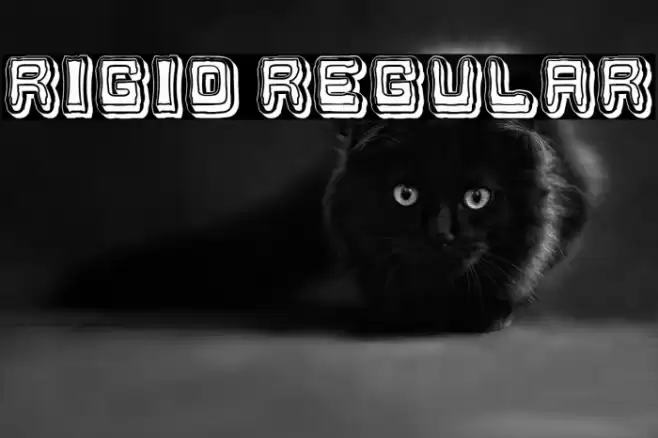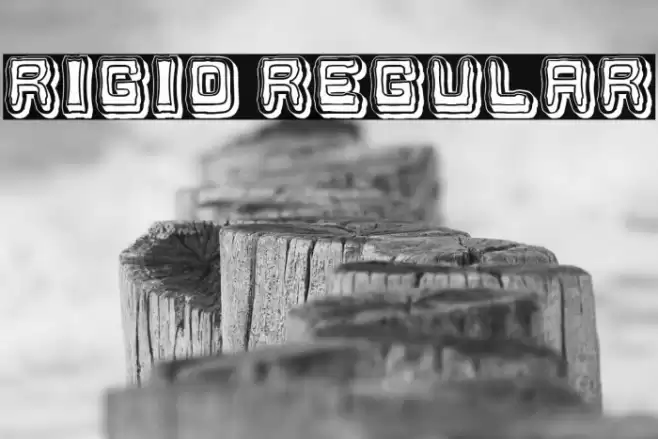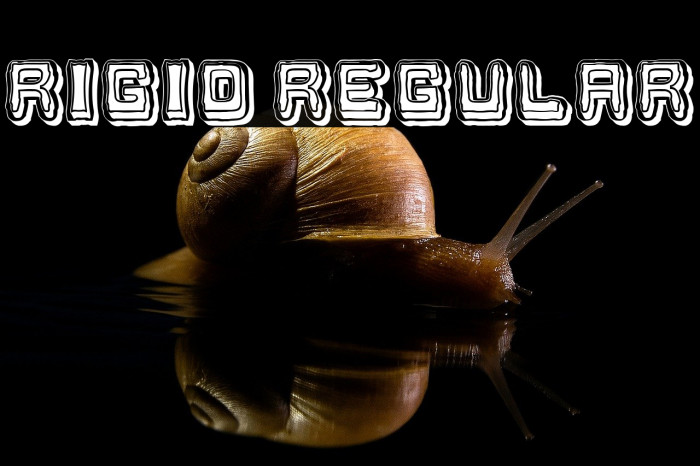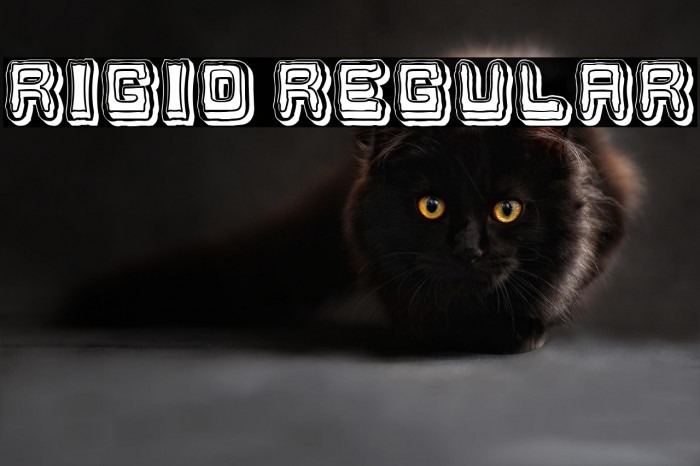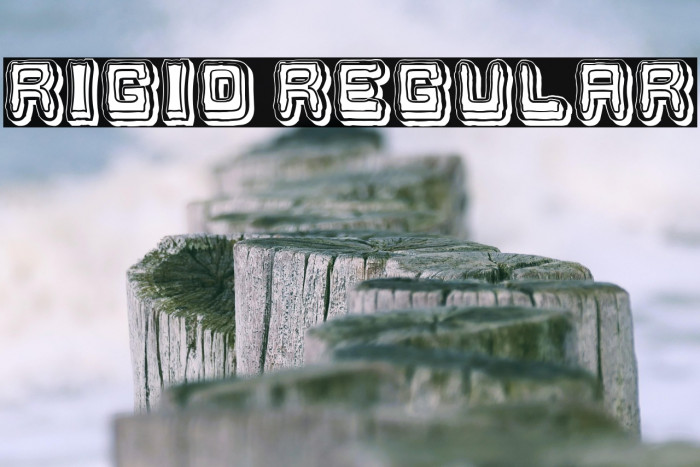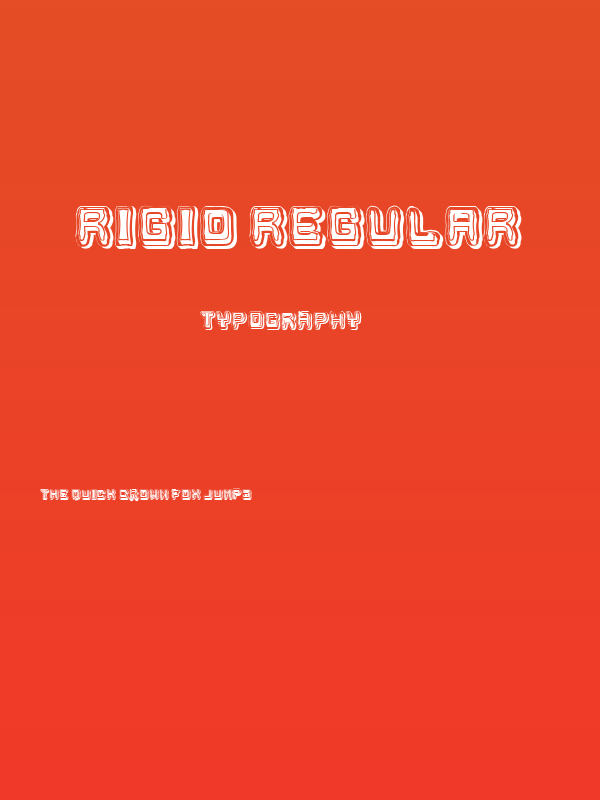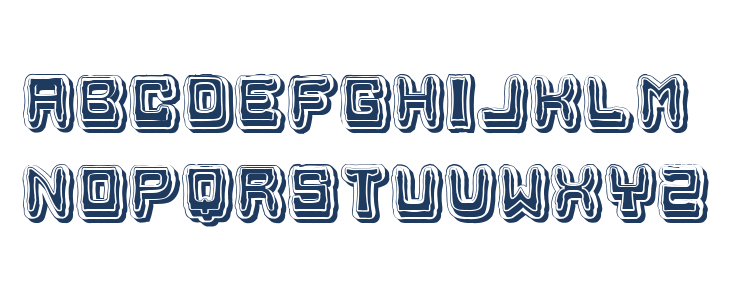
Rigid Regular Font
Rigid Regular Description
This font features a bold, three-dimensional appearance with a distinct outline that gives it a layered, shadowed effect. The characters are uppercase and exhibit a geometric, block-like structure, which contributes to its strong and impactful presence. The design is reminiscent of retro or vintage styles, with a modern twist that makes it suitable for eye-catching displays. The letters are evenly spaced, ensuring readability despite the intricate detailing. This font is ideal for projects that require a standout, decorative typeface that commands attention.
A bold, three-dimensional font with a retro, geometric style from Uncategorized fonts.
- Proposed Projects: Ideal for posters, logos, headlines, and any design needing a bold, decorative touch.
- Overall Style: Retro, Modern